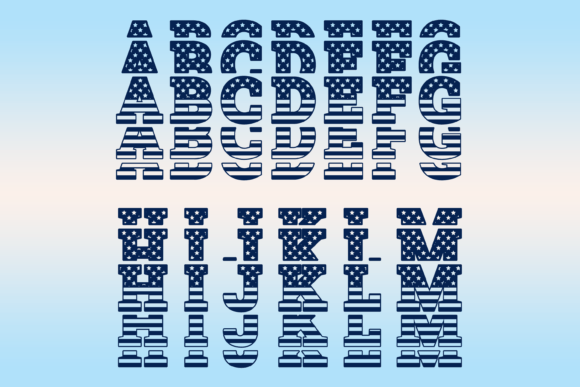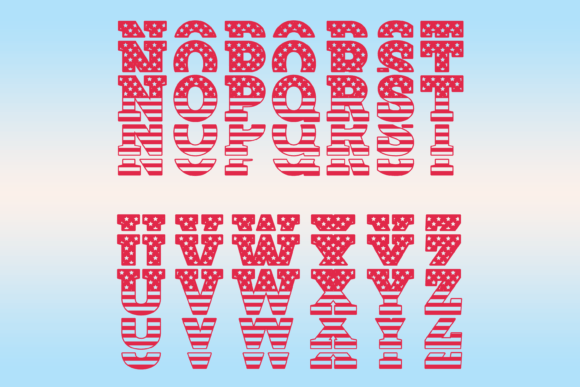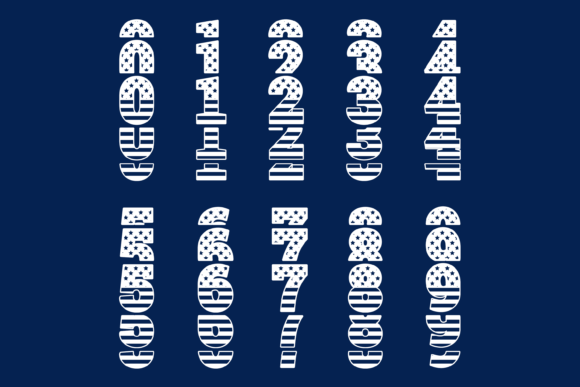
Introduction to Patrio Font Font
Fonts play a crucial role in design, and the Patrio Font font is a typeface that brings both character and versatility to any project. Whether you’re working on a branding project, a website, or a print design, the Patrio Font font offers a unique style that can elevate your work.
| 📌 Font Name | Patrio Font |
| 👤 Author | WADLEN |
Patrio is a USA flag-inspired font.
With its star and stripes style, this font can be used for USA-related designs, for the 4th of July Independence Day, or any other project you have in mind .
Key Features of Patrio Font Font
Why Choose Patrio Font Font?
The Patrio Font font is more than just a typeface – it’s a design tool that helps you communicate your message with style and clarity. Its unique character set and versatile design make it suitable for a wide range of applications, from elegant invitations to bold headlines.
With its carefully crafted letterforms and balanced proportions, the Patrio Font font ensures readability and visual appeal across all mediums.
What makes Patrio Font font special?
The Patrio Font font stands out with its unique design, exceptional readability, and versatility across various design applications.